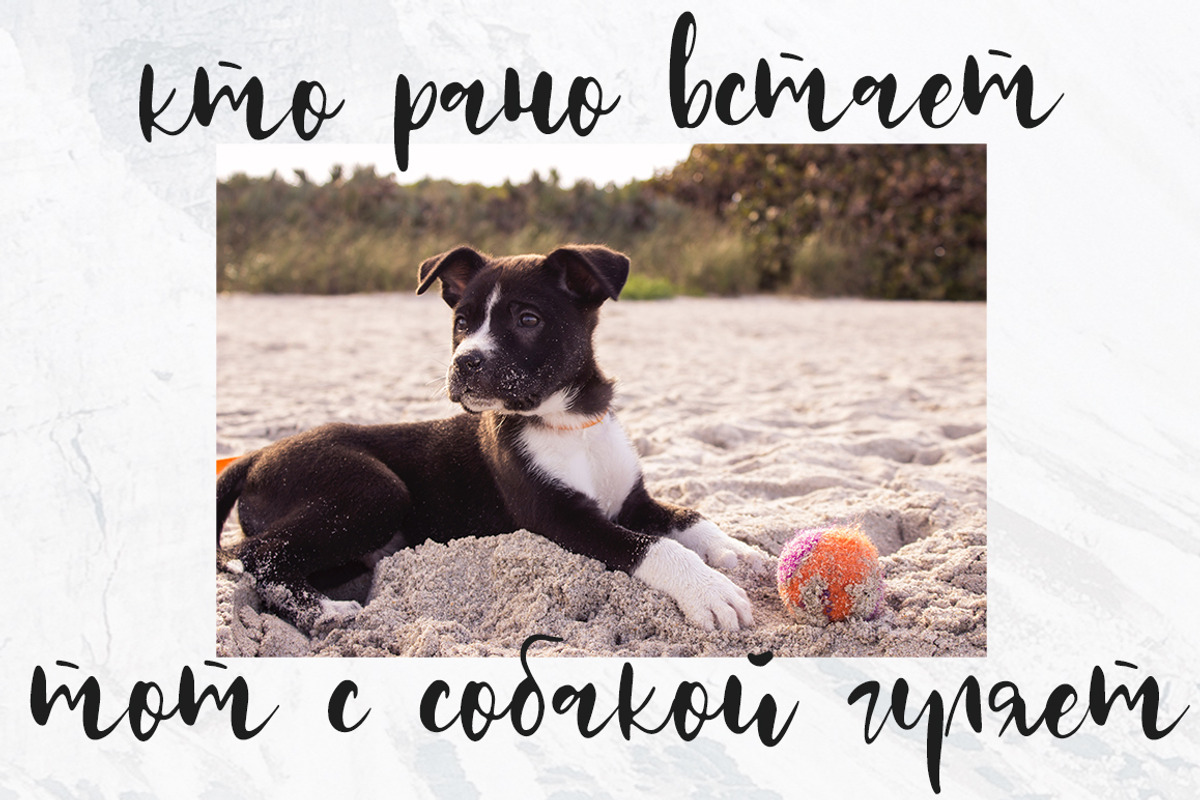
Rockies is sweet and playful, but also Crafty. This versatile script font has a wide range of applications ranging from greeting cards to kids’ crafts, and is guaranteed to add a sweet touch to your next design.
Fonts include CYRILLIC SUPPORT